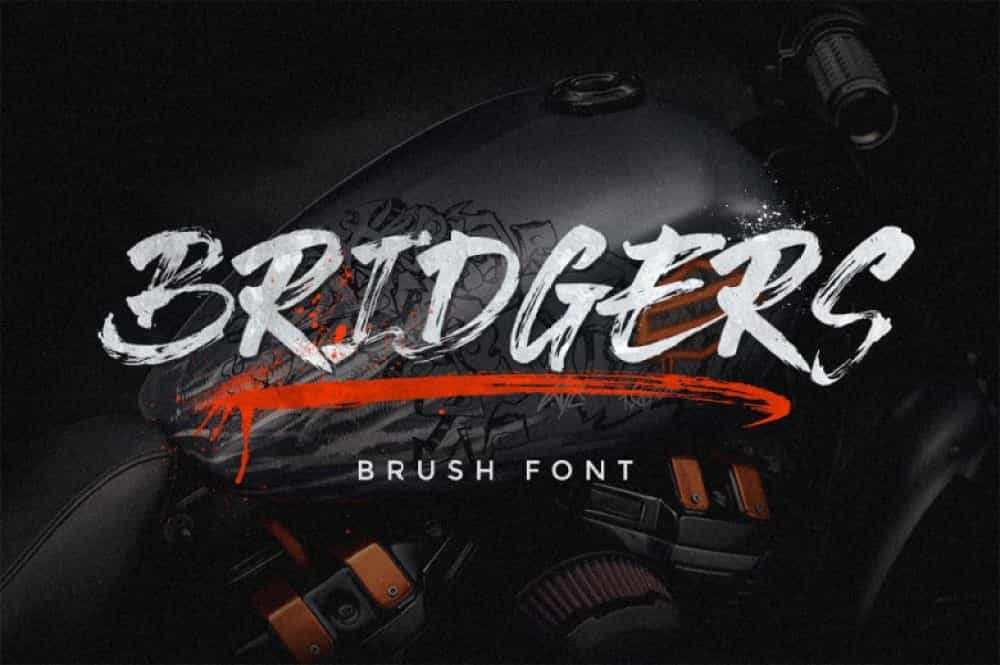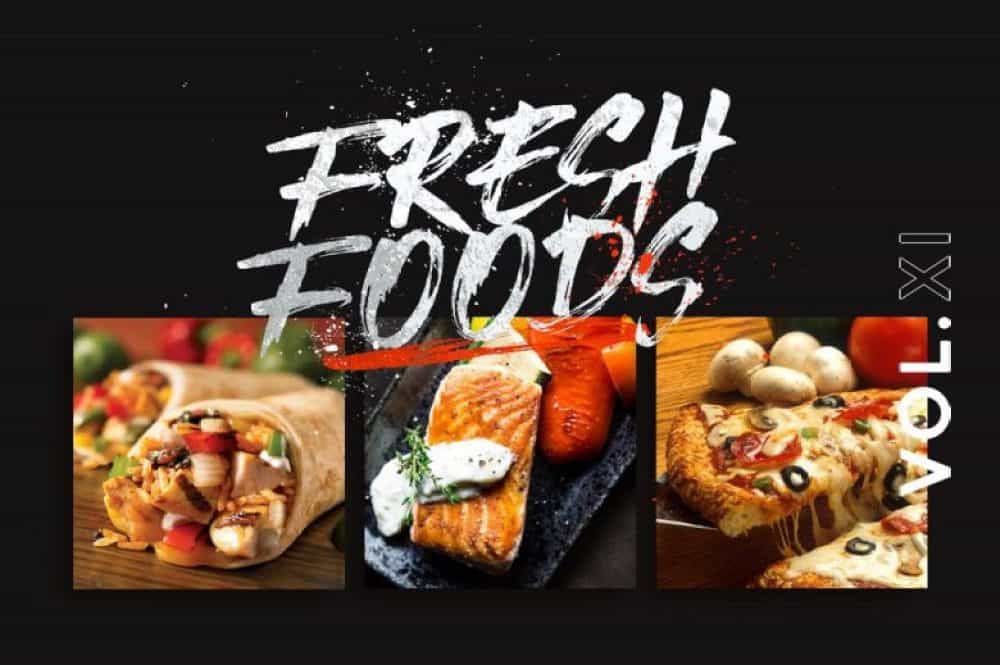
It is a hand painted brush font in UPPERCASE published in Bridgers, which is a beautiful set. Due to having SWASHES which can be mixed up. Bridgers Brush has character designs for logos, name tag, handwritten quotes, product packaging, merchandise, social media, greeting cards, and many more.